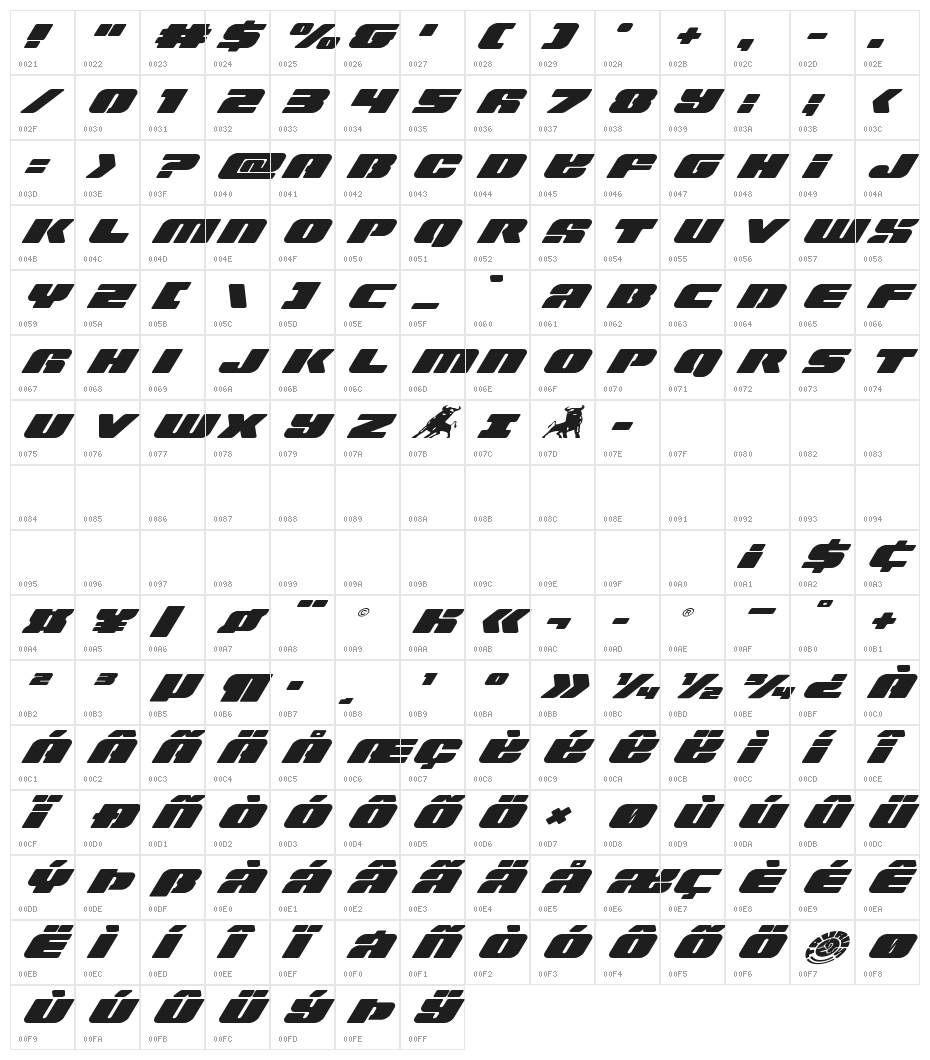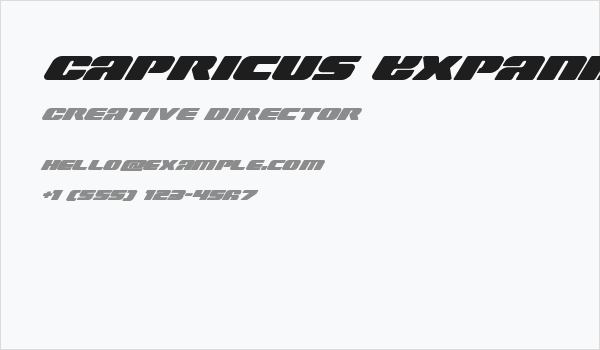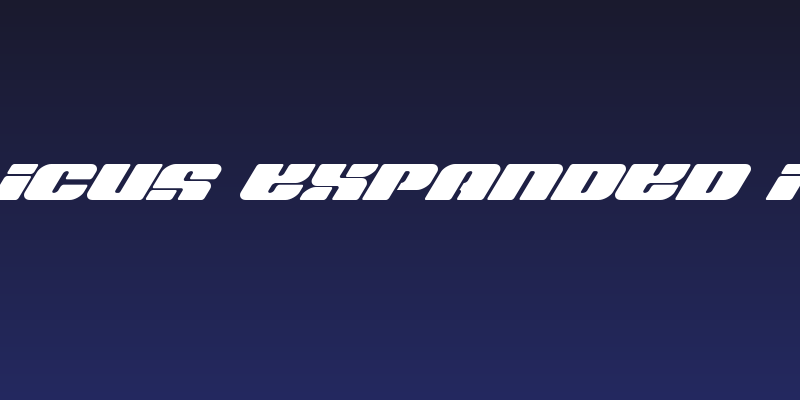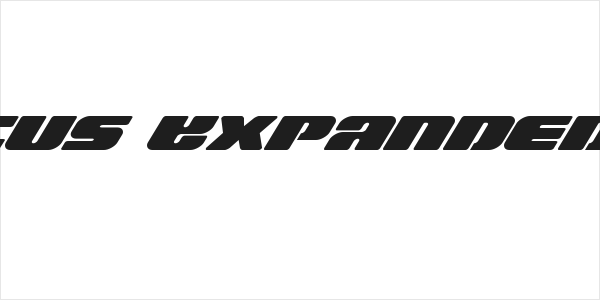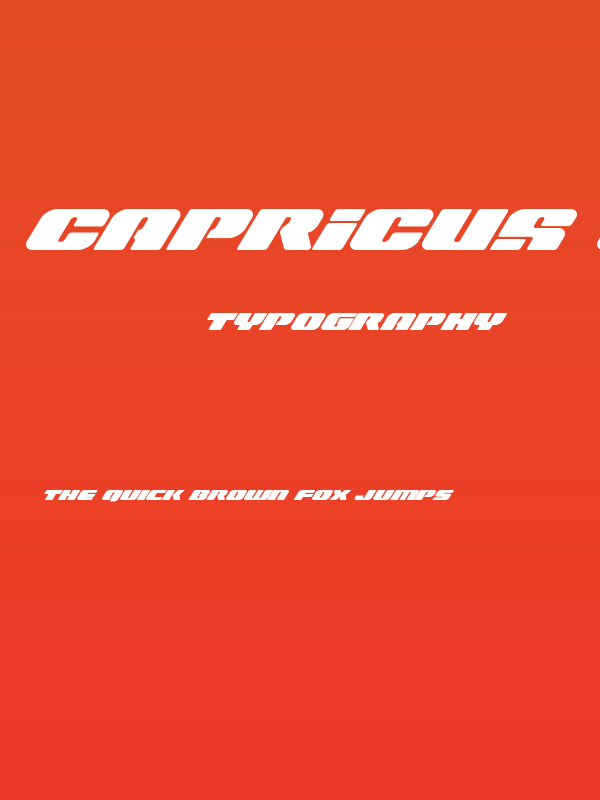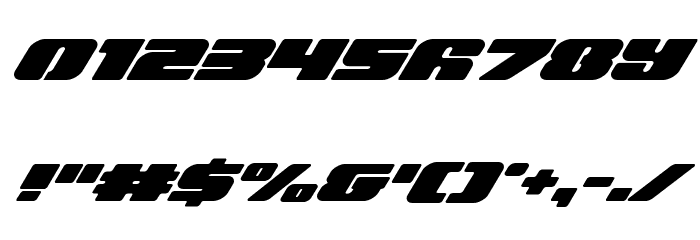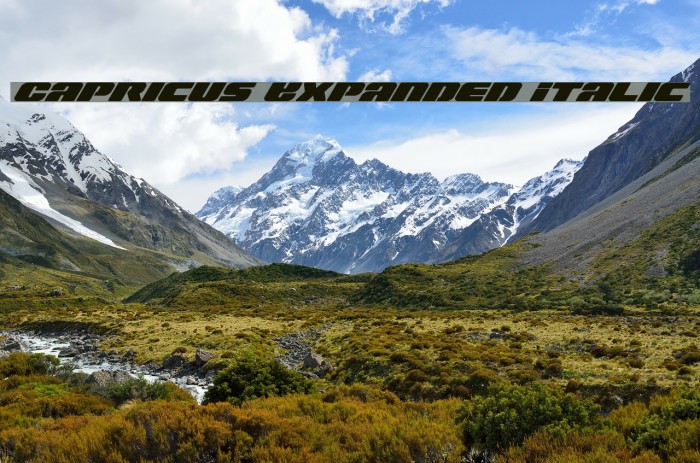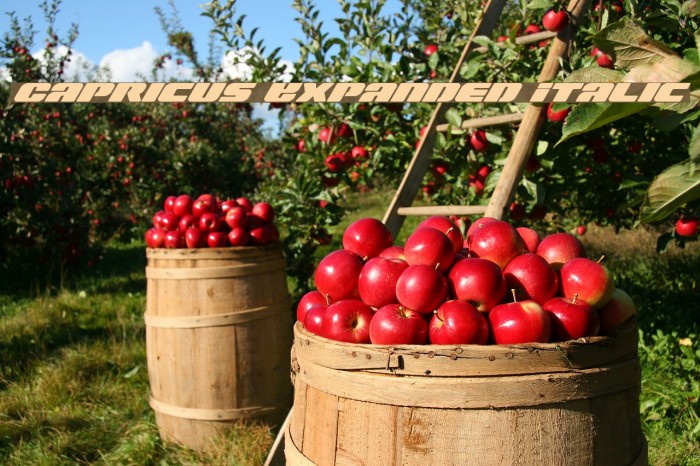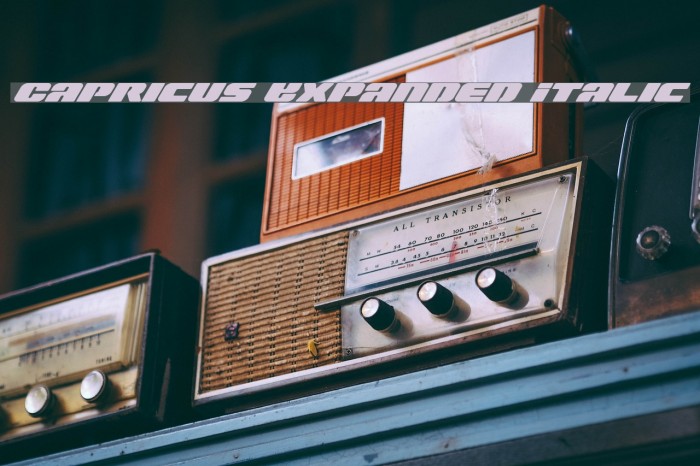
Capricus Expanded Italic Font
Capricus Expanded Italic Description
This font features a bold and dynamic style with a distinctly modern flair. Its expanded width and italic slant give it a sense of motion and energy, making it stand out in any design. The characters are robust and solid, with a geometric influence that adds to its contemporary appeal. The uppercase and lowercase letters maintain a consistent style, while the numerals and special characters complement the overall aesthetic. This font is ideal for projects that require a strong visual impact and a modern touch.
| Proposed Projects | Ideal for sports branding, dynamic posters, modern advertising, and impactful headlines. |